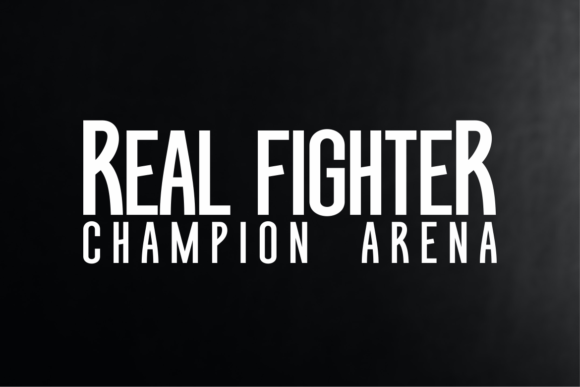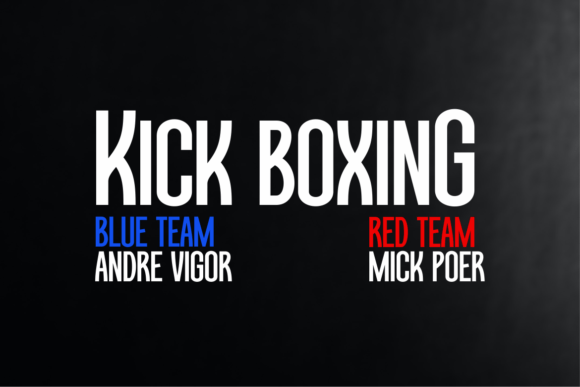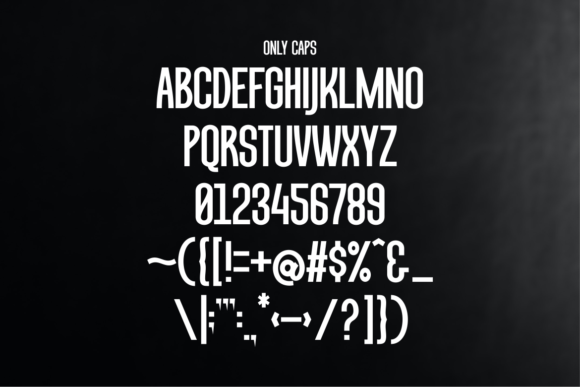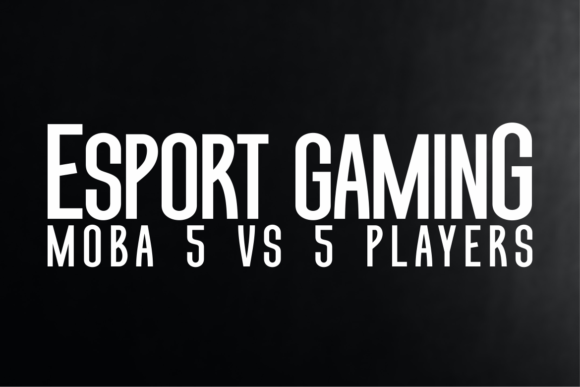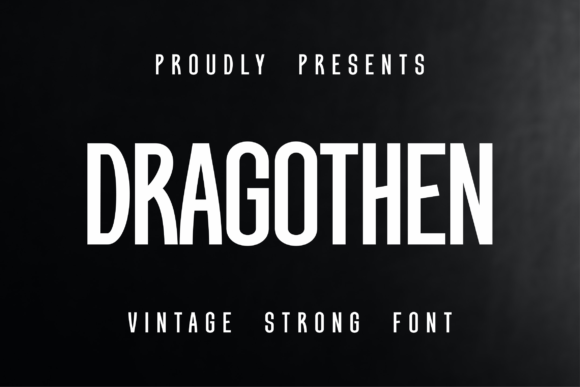
Unleash Your Competitive Edge with Dragothen Font
In the world of design, typography plays a crucial role in conveying the tone and personality of a brand or project. When it comes to competition arenas such as e-sports gaming, real fighting, champion wrestling, and other related fields, a bold and assertive font is essential to make a statement. This is where Dragothen Font comes into play – a sans serif font designed to exude confidence and strength.
The Birth of Dragothen Font
Dragothen Font is crafted with the intention of creating a powerful visual impact. Its bold and assertive design makes it perfect for headlines, titles, and any other application where you want to grab attention. The font’s sans serif design ensures a clean and modern look, making it versatile for various design projects.
Key Features of Dragothen Font
- Bold and Assertive: Dragothen Font is designed to be bold and assertive, making it perfect for competition arenas where confidence and strength are key.
- Sans Serif Design: The font features a clean and modern sans serif design, making it suitable for a wide range of design projects.
- Highly Legible: Despite its bold design, Dragothen Font remains highly legible, ensuring that your message is conveyed clearly and effectively.
- Versatile: Dragothen Font can be used for various design projects, including e-sports gaming, real fighting, champion wrestling, and more.
Use Cases for Dragothen Font
Dragothen Font is perfect for designers and crafters looking to add a competitive edge to their projects. Here are some use cases where Dragothen Font shines:
- E-Sports Gaming: Use Dragothen Font to create bold and attention-grabbing headlines for e-sports gaming tournaments, teams, and players.
- Real Fighting and Wrestling: Dragothen Font is ideal for creating promotional materials for real fighting and wrestling events, including posters, flyers, and social media graphics.
- Champion Logos and Branding: Use Dragothen Font to create strong and assertive logos and branding materials for champions and competitive teams.
- Competitive Event Branding: Dragothen Font can be used to create a cohesive brand identity for competitive events, including conferences, meetups, and tournaments.
Tips for Using Dragothen Font
- Pair with contrasting fonts: Pair Dragothen Font with contrasting fonts to create visual interest and hierarchy.
- Use bold and light weights: Experiment with different weights of Dragothen Font to create visual contrast and add emphasis.
- Consider color: Choose colors that complement the bold and assertive design of Dragothen Font.
Dragothen Font is a powerful and versatile sans serif font designed to make a statement in competition arenas. Its bold and assertive design makes it perfect for e-sports gaming, real fighting, champion wrestling, and other related fields. With its highly legible design and versatile use cases, Dragothen Font is an excellent addition to any designer’s toolkit. Whether you’re a designer or crafter, Dragothen Font is sure to help you unleash your competitive edge and create stunning visual content.